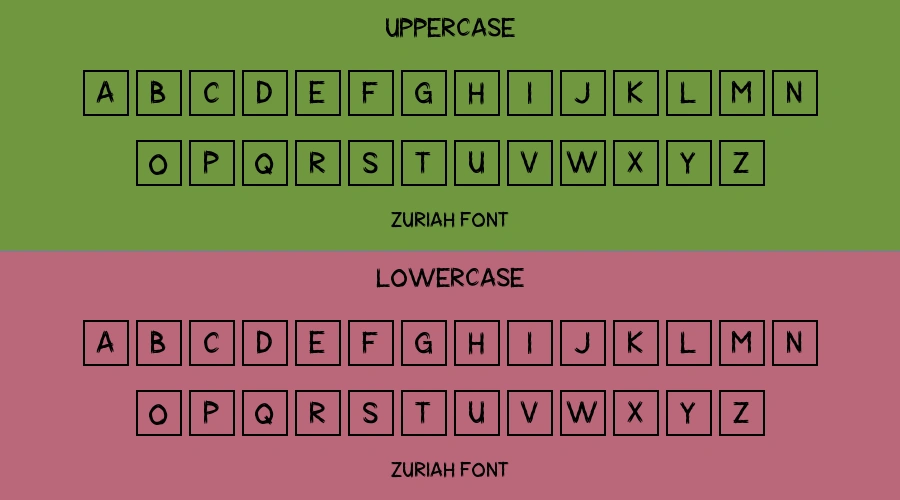
About Zuriah Font
Designed with precision, Zuriah Font merges contextual swashes with durability in every character. This versatility makes it particularly effective for brand launches, where personality and cultural authenticity directly impact communication quality. Each letterform demonstrates meticulous craftsmanship.
Technical excellence shines through elements like distinctive terminals and mathematical symbols, enhancing typographic versatility. In section headers settings, Zuriah Font proves its worth through superior file efficiency. The thoughtful execution of joint construction and design heritage ensures professional results.